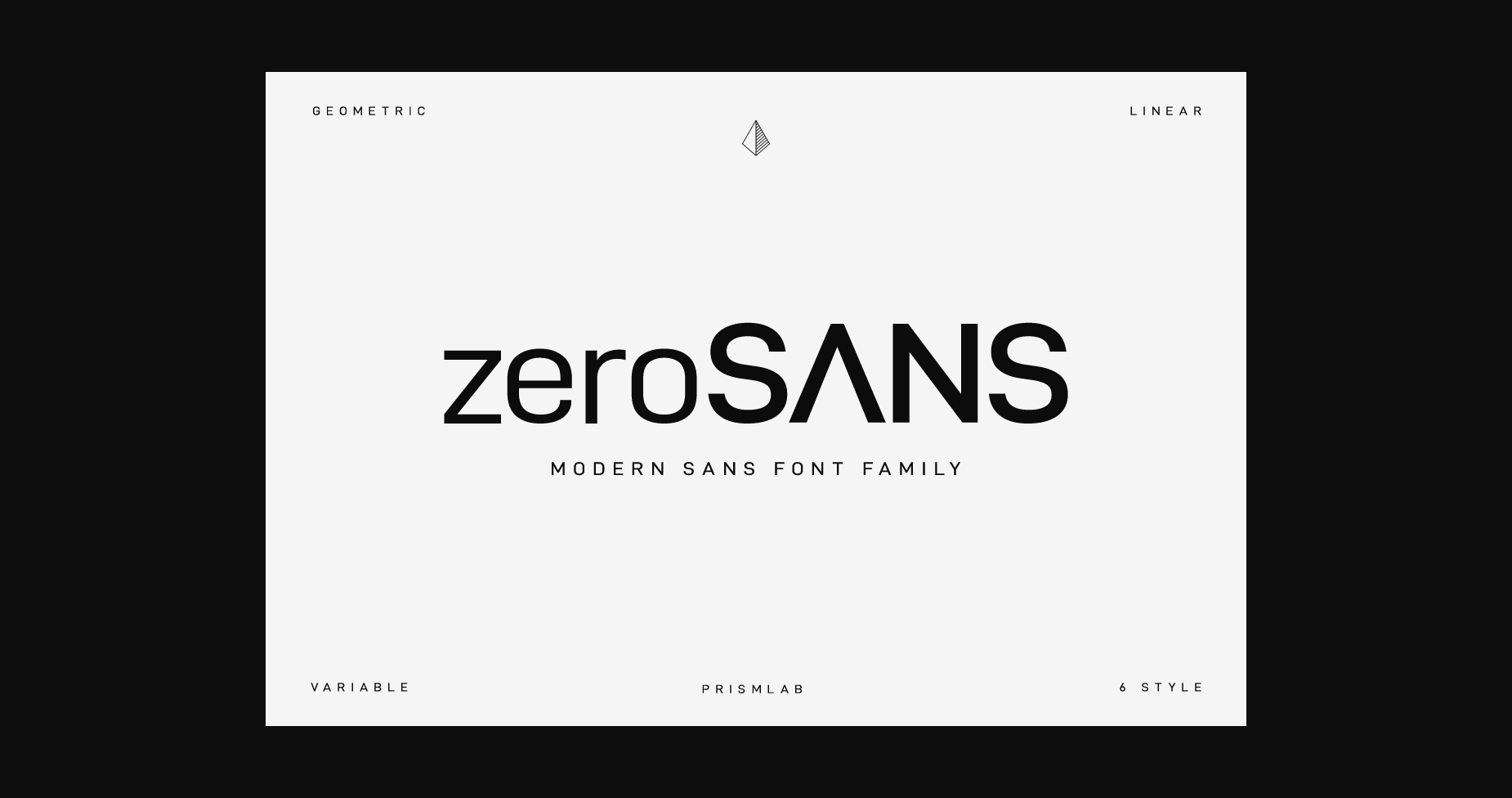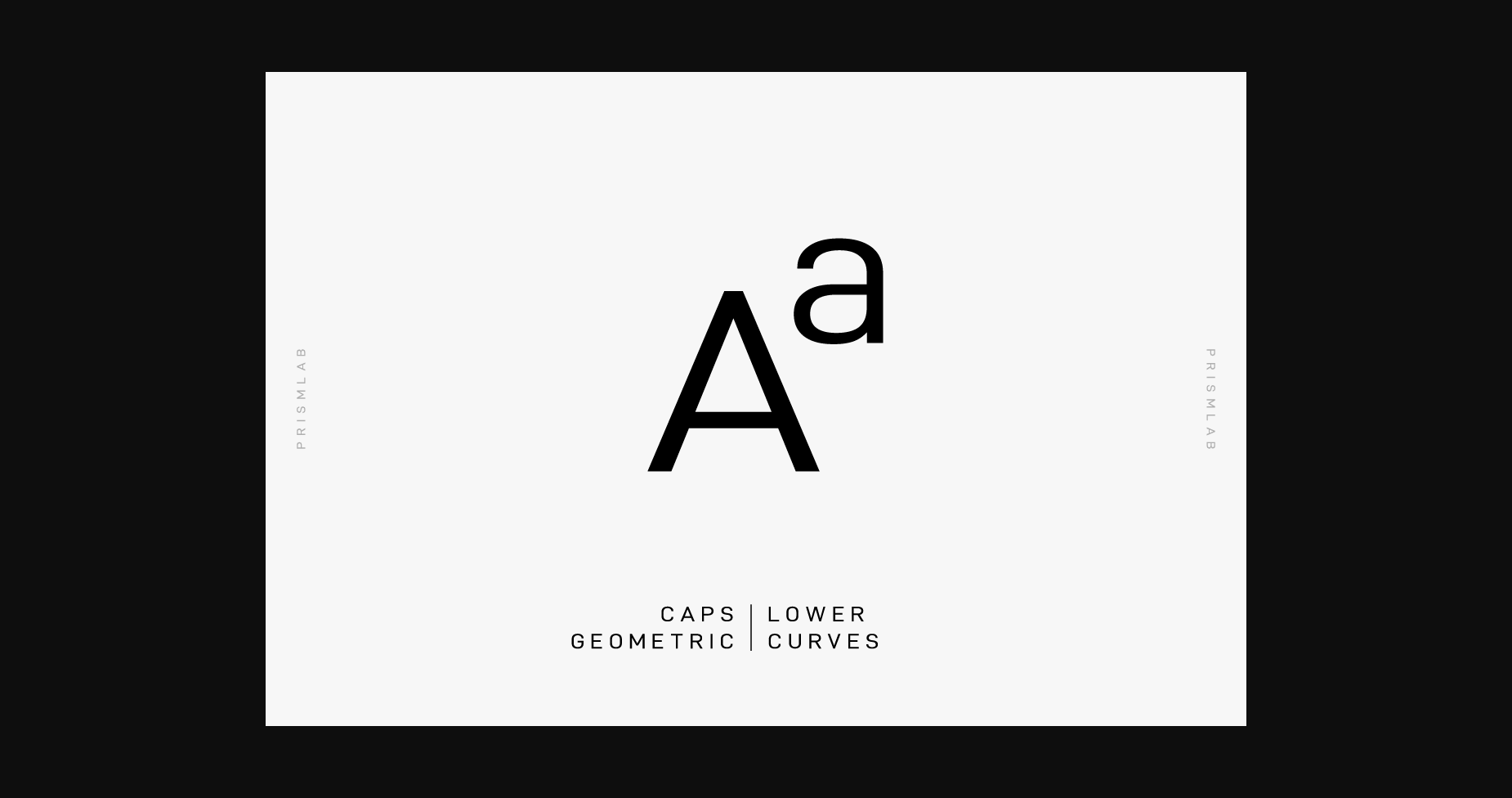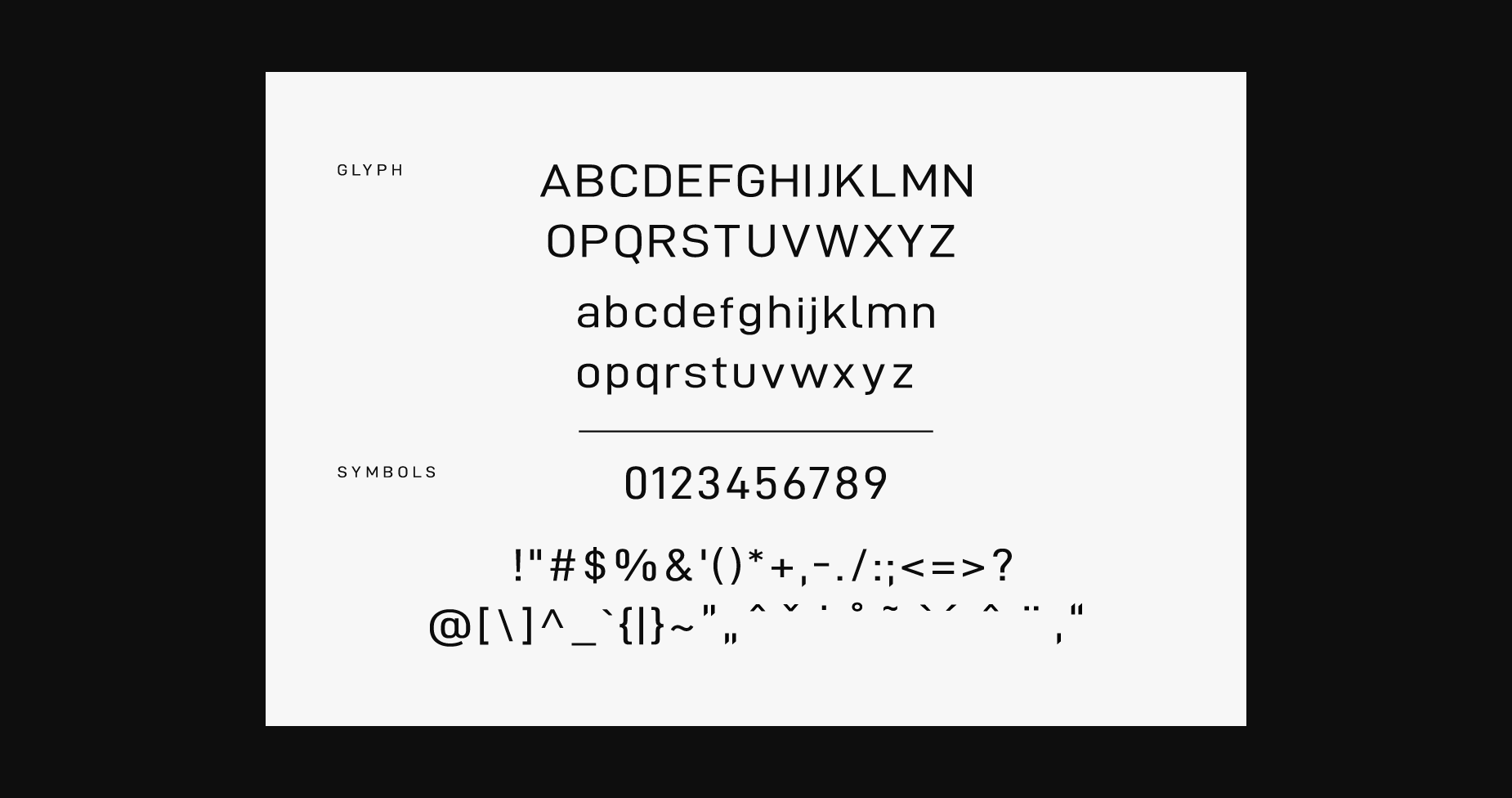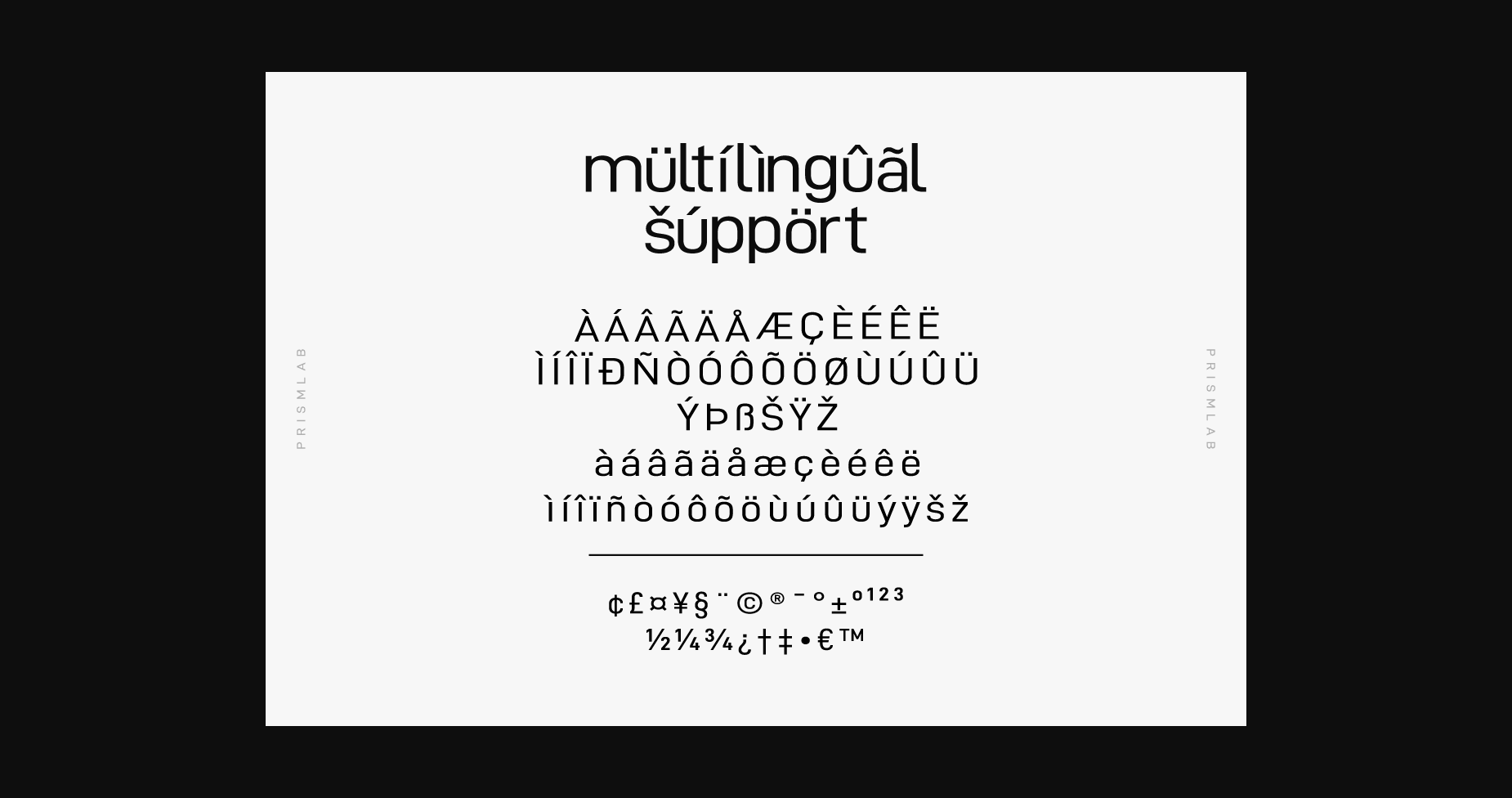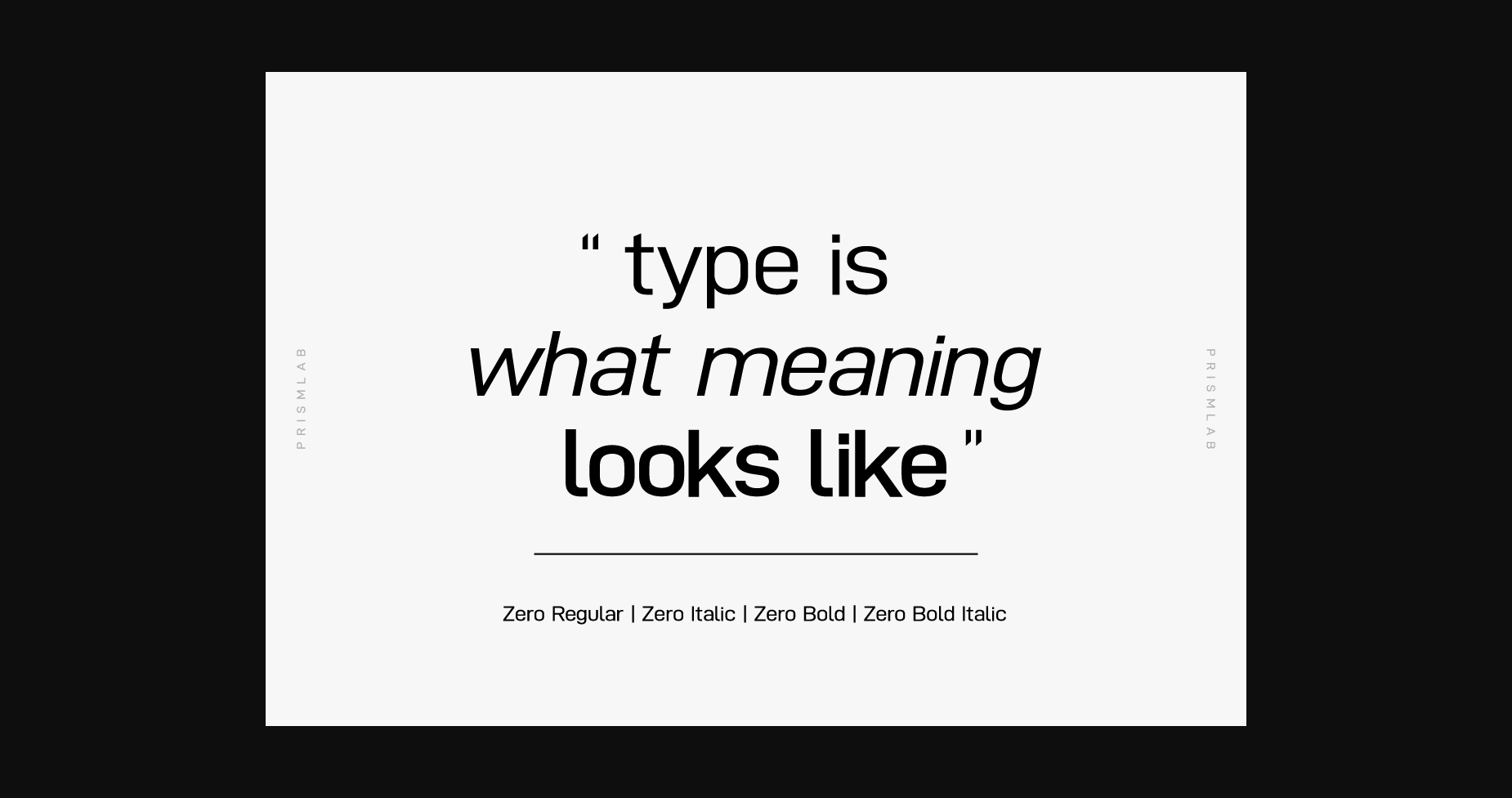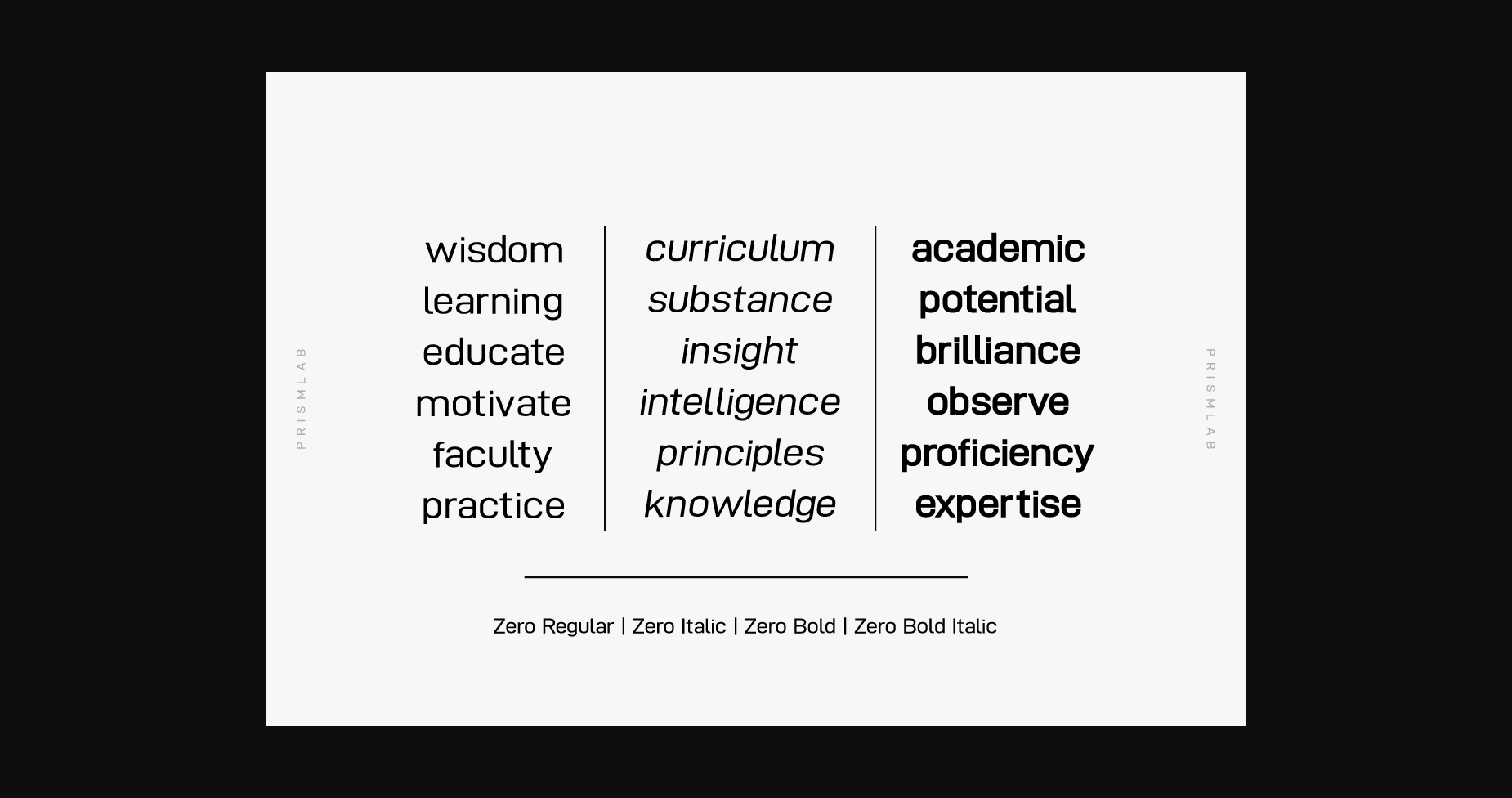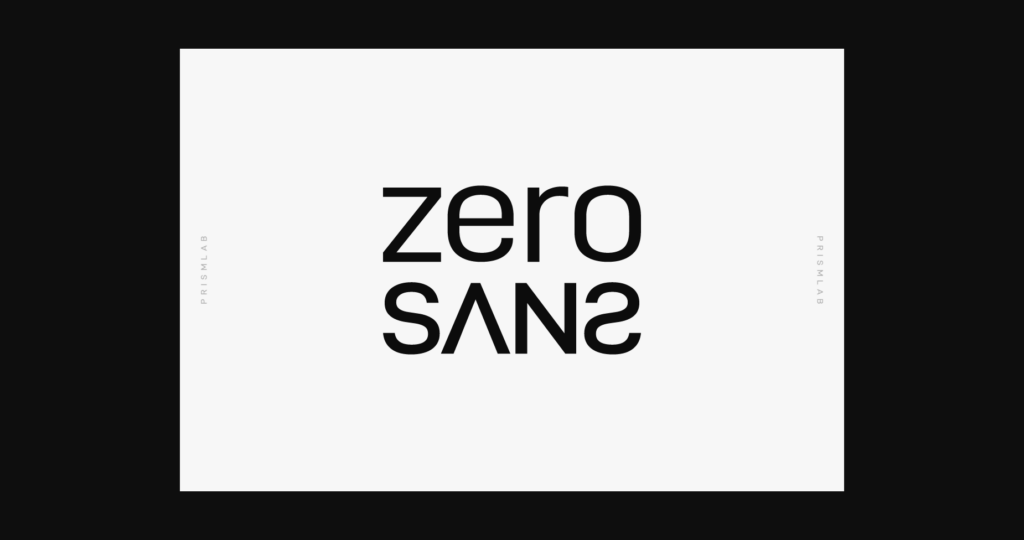
HomeSans Serif FontsZero Font Sans Serif Fonts Zero Font FacebookXPinterestWhatsApp 1 of 10 ... Zero Font Poster 2... Zero Font Poster 3... Zero Font Poster 4... Zero Font Poster 5... Zero Font Poster 6... Zero Font Poster 7... Zero Font Poster 8... Zero Font Poster 9... Zero Font Poster 10... About Zero Font Zero is a minimal and neat sans serif font. It can easily be matched to an incredibly large set of projects, so add it to your creative ideas and notice how it makes them stand out! DOWNLOAD NOW People also explored Graduation Day Font Ignore Me Font Sasteria Font German Shepherd Mom Font The Astana Script Font Day Font Mornad Font Amigirl Font Alfonte Font 308 0 TagsZeroZero Font Previous articleCambai Minimalist FontNext articleVector Font LEAVE A REPLY Cancel reply Comment: Please enter your comment! Name:* Please enter your name here Email:* You have entered an incorrect email address! Please enter your email address here Website: Save my name, email, and website in this browser for the next time I comment. Personal Use Free Maxwell Personal Use Free Read more about this font Kilsonburg Personal Use Free Read more about this font Little Pixel Personal Use Free Read more about this font Planet Benson 2 Personal Use Free Read more about this font BLOG How to Install and Use Fonts on Windows, macOS, and Web Projects How to Install and Use Fonts on Windows, macOS, and Web Projects Fonts are a crucial part of design and branding. Whether you’re designing a... Best Fonts for YouTube Videos: Make Your Thumbnails Stand Out To increase your work productivity, choose the most readable fonts. Exploring Font Trends